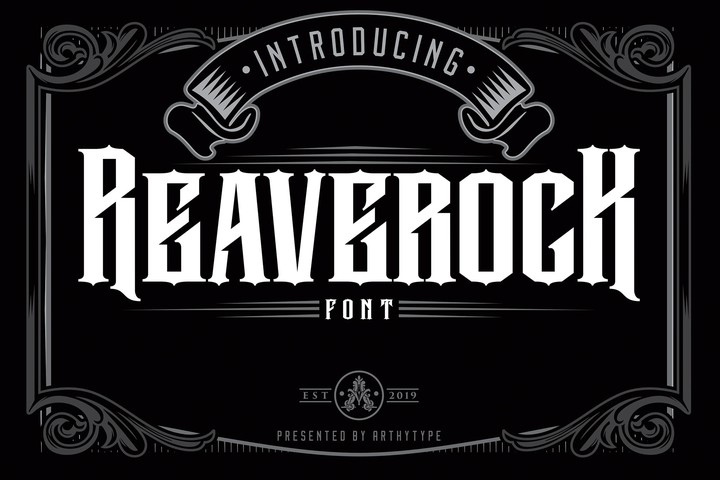
Reaverock Font
Reaverock Font is perfectly suited for rock band logos, metal music album covers, extreme sports branding, motorcycle gear designs, tattoo parlor signage, aggressive marketing campaigns, action movie titles, gaming interfaces, and rebellious streetwear brands.
What makes Reaverock Font so exciting is its raw power and unapologetic boldness that instantly commands attention and conveys strength, rebellion, and authentic edge in any design application. This commanding typeface features aggressive letterforms with sharp angles, dramatic weight variations, and distinctive character shapes that embody the spirit of rock culture and alternative lifestyle aesthetics. The font's intense visual impact and uncompromising style create immediate emotional connections with audiences who appreciate authenticity, power, and non-conformist attitudes. Reaverock Font stands out through its ability to convey intensity, rebellion, and artistic authenticity, making it perfect for brands and projects that need to establish a strong, memorable presence and connect with audiences who value individuality, strength, and alternative culture expressions.
The Reaverock Font family includes Regular, Bold, and Black weights, each maintaining the font's distinctive aggressive character while providing flexibility for creating powerful visual hierarchies. The family also features stylistic alternates, decorative elements, and special characters that enhance the font's rebellious aesthetic and provide additional creative possibilities for specialized applications.
The technical craftsmanship of Reaverock Font includes a comprehensive character set with uppercase and lowercase letters, numerals, punctuation marks, and specialized symbols that maintain the font's aggressive character. The font has been optimized for both digital and print applications, ensuring consistent performance while preserving the sharp, powerful details that give it its distinctive rebellious character and authentic appeal.
Whether you're designing music industry materials, creating extreme sports branding, developing alternative lifestyle merchandise, or crafting designs that need to convey power and rebellion, Reaverock Font delivers the perfect combination of authentic edge and professional quality that makes your projects resonate powerfully with audiences seeking genuine alternative culture and non-conformist expression.